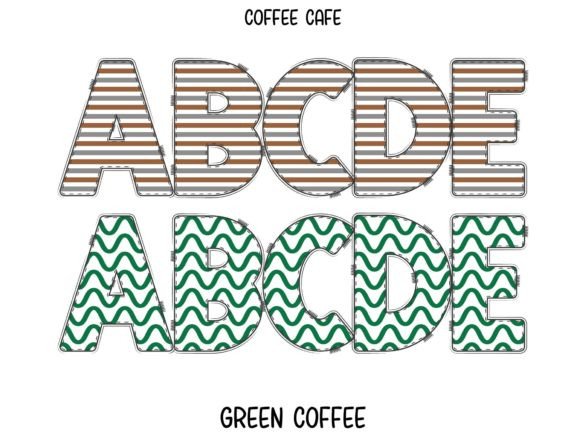
Coffee Cafe Font: The Perfect Blend for Coffee-Themed Designs
Are you a designer or crafter looking for a unique and quirky font to elevate your coffee-themed projects? Look no further than the Coffee Cafe Font, a beautiful and detailed font that celebrates the world of coffee. In this article, we’ll dive into the features and benefits of this stunning font, and explore how you can use it to create amazing designs for the coffee business and community.
A Font that’s a Cut Above the Rest
Coffee Cafe is a carefully crafted font that combines the rich flavors of coffee with a playful twist. The font features intricate details of coffee beans, making it a standout choice for coffee shops, cafes, and anyone who loves coffee. The font comes in two versions: a black version and a color version, each with its own unique benefits.
Color Version: A Rainbow of Possibilities
Designing with Coffee Cafe Font: Tips and Inspiration
So, how can you use Coffee Cafe Font in your designs? Here are a few ideas to get you started:
- Create a stunning coffee shop sign or poster with the black version of the font
- Design a set of colorful coffee-themed cards or invitations with the color version
- Use the font to create a unique and eye-catching coffee-themed t-shirt or mug design
- Make a beautiful coffee-themed wall art or print with the font
Why Choose Coffee Cafe Font?
So, why choose Coffee Cafe Font for your coffee-themed designs? Here are just a few reasons:
- Unique and quirky design that’s sure to stand out
- Carefully crafted details of coffee beans for a authentic look and feel
Coffee Cafe Font is a beautiful and versatile font that’s perfect for designers and crafters who love coffee. With its unique design, intricate details, and compatibility with a range of design programs and cutting machines, this font is sure to elevate your coffee-themed projects to the next level. Whether you’re a coffee shop owner, a crafter, or simply a coffee lover, Coffee Cafe Font is the perfect choice for your next design project.